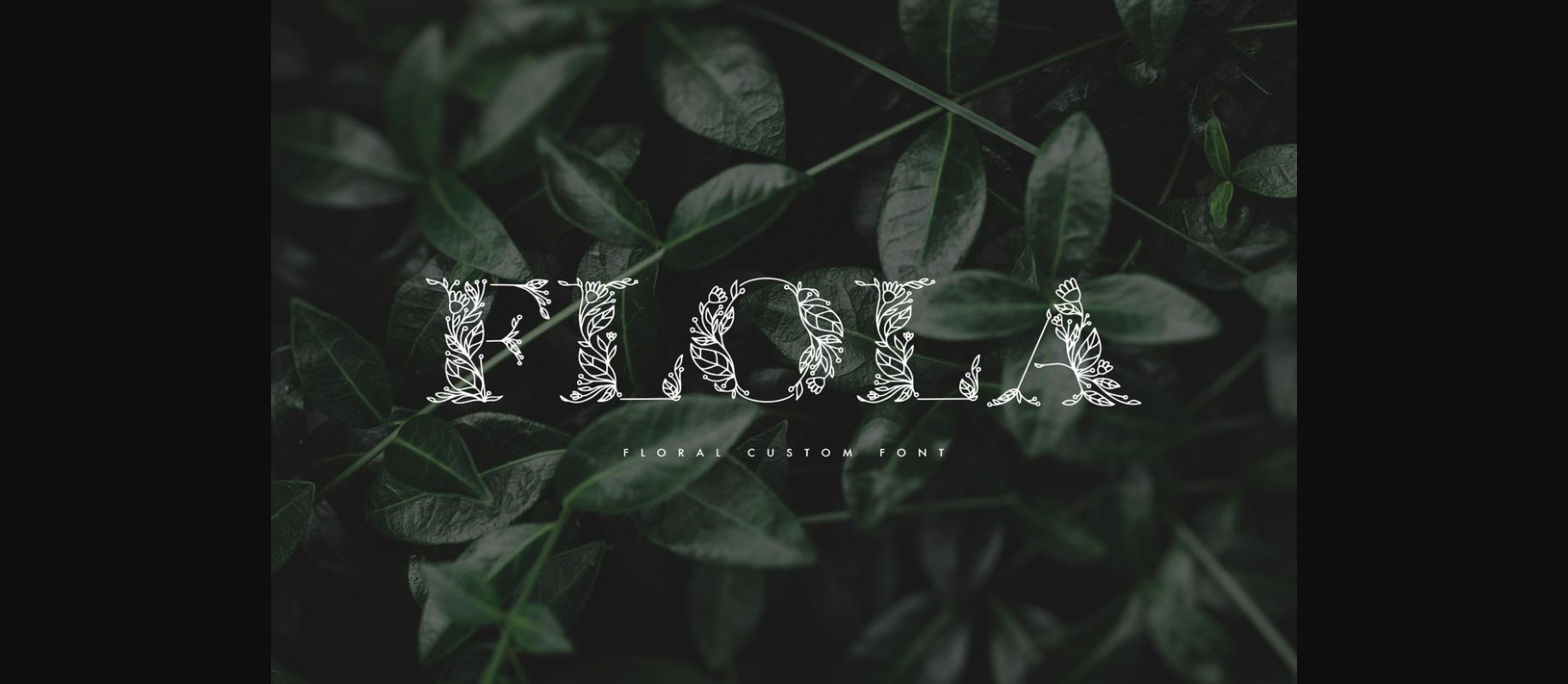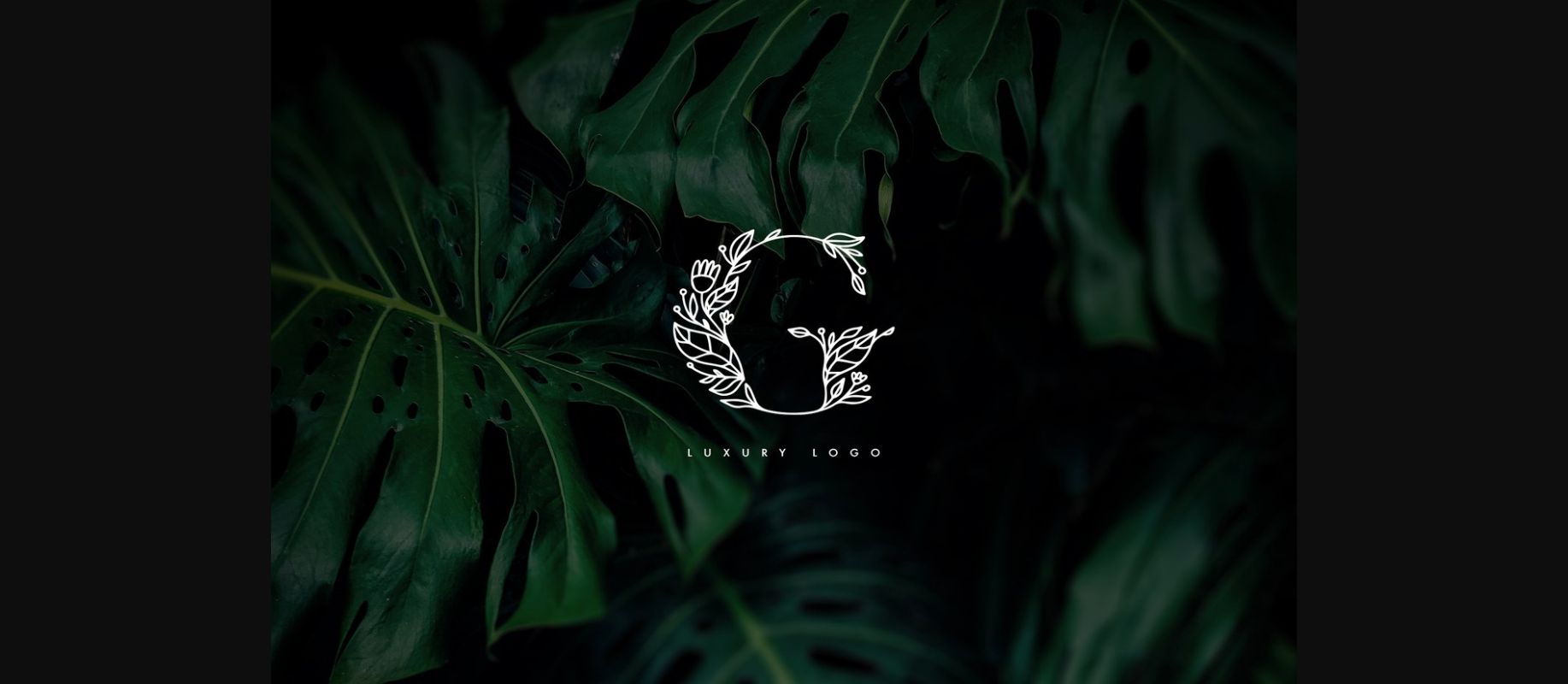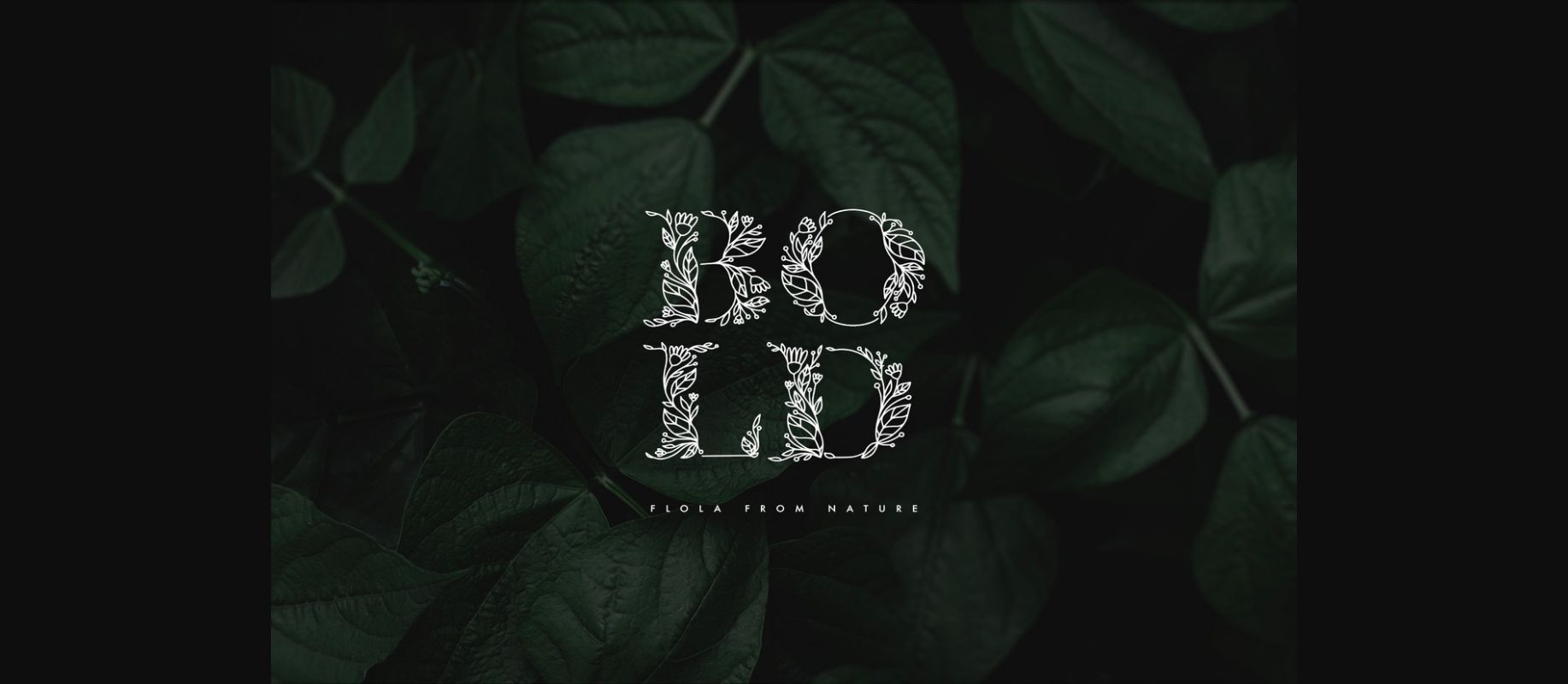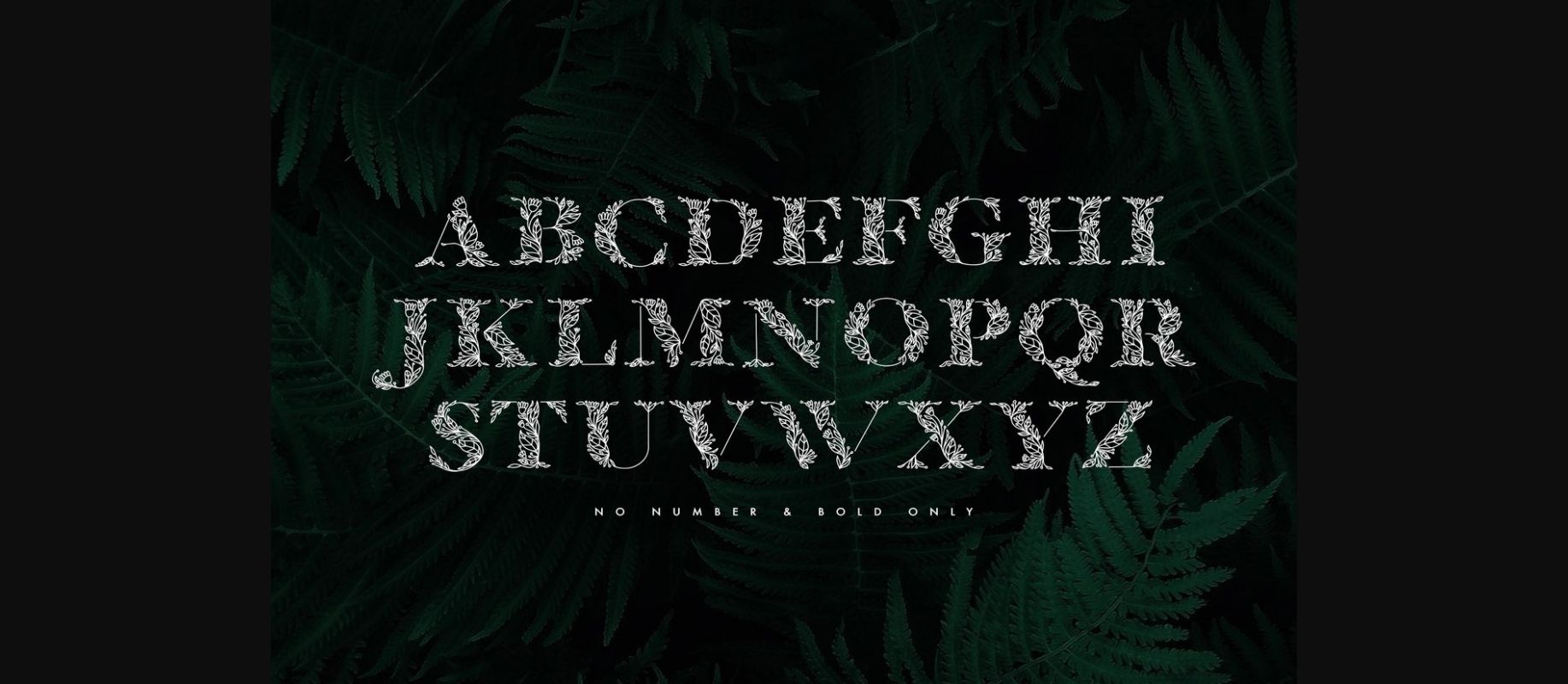
HomeDecorative FontsFlola Font Decorative Fonts Flola Font FacebookXPinterestWhatsApp 1 of 6 ... Flola Font Poster 2... Flola Font Poster 3... Flola Font Poster 4... Flola Font Poster 5... Flola Font Poster 6... About Flola Font Flola is a fantastic decorative font drawn with a composition of leaves and flowers to form the letters. Classy and luxurious, this font is absolutely perfect for titles and logos. DOWNLOAD NOW People also explored Casual Mix Font Roxalose Font Ninja Warrior Font She Hungry Font Cross My Heart Font Abigail Font Sandblaster Font Muierle Font Hotel Pool Font 362 0 TagsFlolaFlola Font Previous articleLonesome Zombies FontNext articleChristmas Split Monogram Font LEAVE A REPLY Cancel reply Comment: Please enter your comment! Name:* Please enter your name here Email:* You have entered an incorrect email address! Please enter your email address here Website: Save my name, email, and website in this browser for the next time I comment. Personal Use Free Chandella Personal Use Free Read more about this font Monofonto Personal Use Free Read more about this font Bolt Electric Personal Use Free Read more about this font Boronic Personal Use Free Read more about this font BLOG How to Install and Use Fonts on Windows, macOS, and Web Projects How to Install and Use Fonts on Windows, macOS, and Web Projects Fonts are a crucial part of design and branding. Whether you’re designing a... Where to Buy American Fonts Online in 2024 Top 7 Google Fonts Alternatives for Faster and Privacy-Friendly Web Design (2025) Elegant Wedding Invitation Fonts – Handwritten & Script Fonts